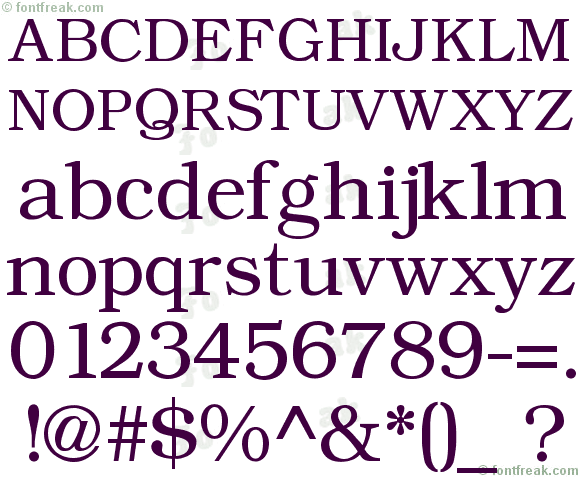
Angleterre Book
Angleterre Book is a distinguished serif font designed by Digital Graphic Labs, released in 1998 under a freeware license. This typeface exhibits a classic aesthetic, characterized by its elegant stroke weight and moderate contrast that strikes a balance between readability and sophistication. The letterforms are well-spaced, providing clarity while maintaining a sense of warmth and approachability. The subtle serifs add a touch of tradition, making Angleterre Book a versatile choice for various design applications.
This font is particularly suitable for projects like wedding invitations, where its refined appearance can enhance the overall elegance of the event. It excels in print media, making it a perfect fit for restaurant menus, where the combination of readability and style can elevate the dining experience. Additionally, Angleterre Book can be used effectively in book covers, lending a literary charm that attracts readers. Its classic design also makes it an excellent choice for branding materials, allowing small business owners to convey professionalism without sacrificing personality.
Targeting graphic designers, content creators, and small business owners, Angleterre Book offers a unique blend of tradition and modernity. Its adaptability across various mediums ensures that it resonates with a wide audience while maintaining a distinct character.
What truly sets the Angleterre Book font apart is its timeless elegance, making it a valuable addition to any designer's toolkit. The combination of its classic serif style with contemporary usability allows it to shine in both digital and print formats. For those seeking to elevate their creative projects, the Angleterre Book font free download provides an excellent opportunity to incorporate this charming typeface into their designs.